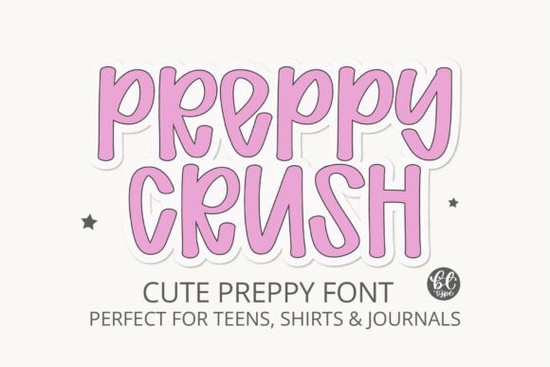
If you’ve been searching for a font that feels like sunshine in typographic form, Preppycrush Font might be exactly what your next project needs. It’s the kind of typeface that doesn’t shout for attention but still manages to steal the show especially if your audience leans toward cheerful, youthful, or cozy aesthetics. Whether you’re designing stickers for Etsy, custom tees for teens, or journal spreads that feel like a warm hug, this font brings personality without overwhelming your layout.
What makes Preppycrush different from other display fonts?
At first glance, it looks like an all-caps font and technically, it is. But here’s the twist: each letterform is drawn with the soft curves and casual bounce you’d normally find in lowercase handwriting. That means you get bold presence with gentle charm. Think of it as confidence wrapped in pastel paper. It’s hand-drawn, so no two letters feel robotic or stiff, which gives your designs a personal, crafted vibe even when mass-produced.
You’ll notice similarities if you’ve used fonts like Glossy Bubble or Super Bubble they share that bubbly energy but Preppycrush leans more into preppy, clean-lined sweetness rather than pure cartoonish fun. It also pairs surprisingly well with minimalist layouts or layered over textured backgrounds, making it flexible for both digital and print use.
Who should really consider using this font?
- Print-on-demand sellers T-shirts, mugs, tote bags? Yes. The font holds up at larger sizes and reads clearly even on curved surfaces.
- Planner and journal creators Weekly headers, motivational quotes, habit trackers it adds pep without clutter.
- Social media designers Instagram carousels, Pinterest pins, TikTok thumbnails its bubbly-but-clean look pops in feeds.
- Teachers and classroom crafters Bulletin boards, reward charts, student name tags friendly enough for kids, stylish enough for teens.
- Small brands targeting Gen Z or millennial audiences Especially those in lifestyle, self-care, stationery, or apparel niches.
If your brand voice is “I’m put-together but I also nap in sweatpants,” this font gets you. It’s not trying too hard. And that’s why it works.
How does it perform in design tools like Canva or Cricut?
No weird kerning issues. No clipping. Just drag, type, and go. If you’ve struggled with overly ornate script fonts that break in cutting machines, this one’s a relief. You can even layer it with something more structured like Mascot College for contrast and it won’t fight for dominance.
Any tips for styling it without overdoing it?
Absolutely. Because it’s inherently playful, restraint helps it shine:
- Pair with neutrals. Let the font do the talking. Use simple sans-serifs like Helvetica or Montserrat for body text.
- Stick to short phrases. It’s a display font perfect for headlines, logos, or punchy quotes. Avoid long paragraphs.
- Try pastels or muted tones. Dusty rose, sage green, butter yellow these let the font’s personality glow without visual noise.
- Add subtle texture. A light paper grain or watercolor wash behind the text keeps it grounded and handmade-feeling.
And if you’re going for maximum charm? Combine it with illustrations or doodles. Think floral borders, coffee cups, or notebook scribbles. It vibes especially well with the kinds of visuals you’d see alongside Beautiful Smile same energy, slightly different flavor.
For reference, you can check out the original listing here: Preppycrush Font.
Quick checklist before you download
- ✅ Confirm your project calls for a friendly, youthful tone
- ✅ Test it with your most common design tool (Canva? Cricut?)
- ✅ Pair it with a simple complementary font for balance
- ✅ Avoid using it for formal documents or corporate reports (it’s just not that font)
- ✅ Have fun seriously, this font thrives when you’re not overthinking it
Start small. Try it on a single sticker design or Instagram story. See how it feels. Sometimes the right font isn’t about rules it’s about whether it makes you smile when you type with it. Preppycrush tends to do exactly that.